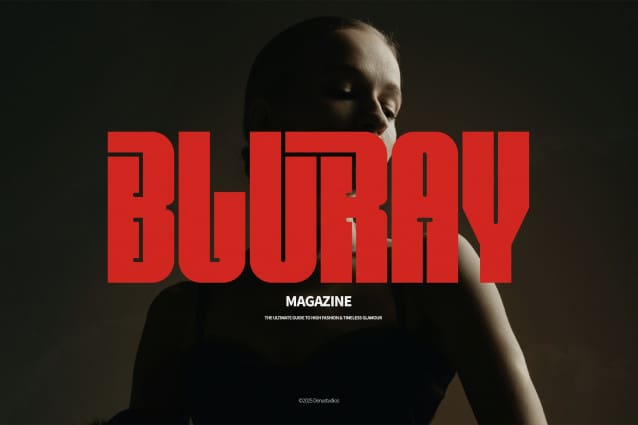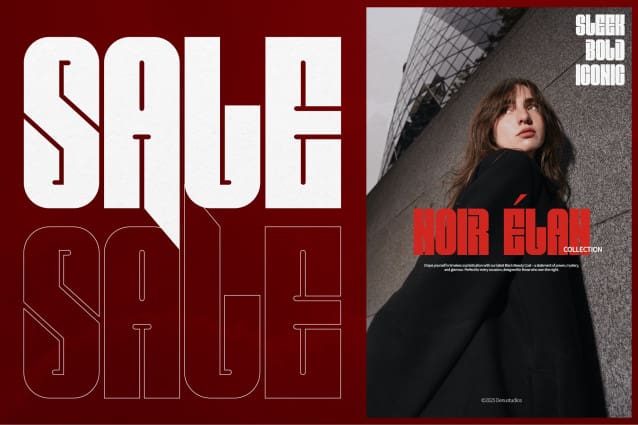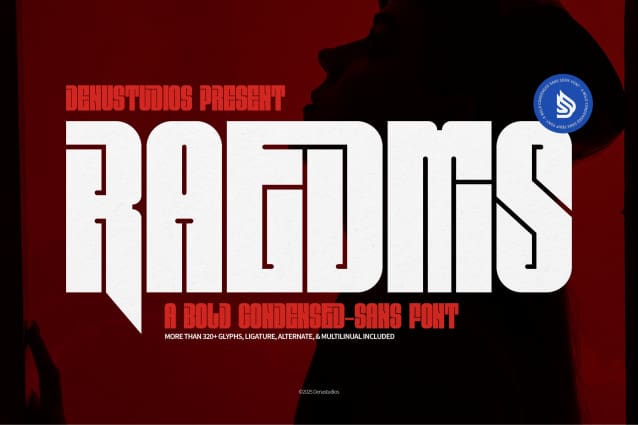
Raedmis Font
Raedmis Font | Bold Condensed Sans Serif, from Denustudios, suitable for any projects such as: logos, branding projects, homeware designs, product packaging, mugs, quotes, posters, shopping bags, t-shirts, book covers, name card, invitation cards, greeting cards, label, photography, watermark, special events, and all your other lovely projects that need a Bold Condensed Sans Serif taste.